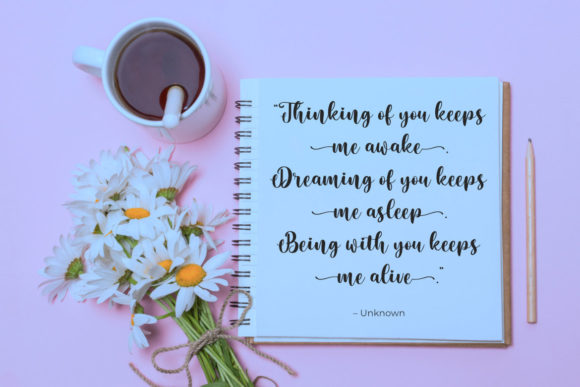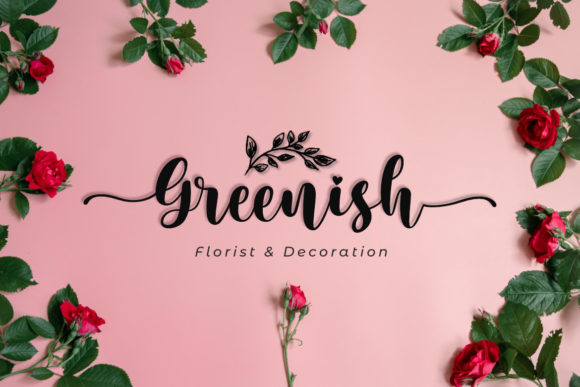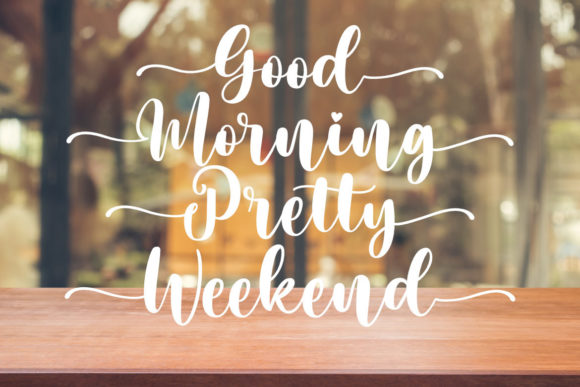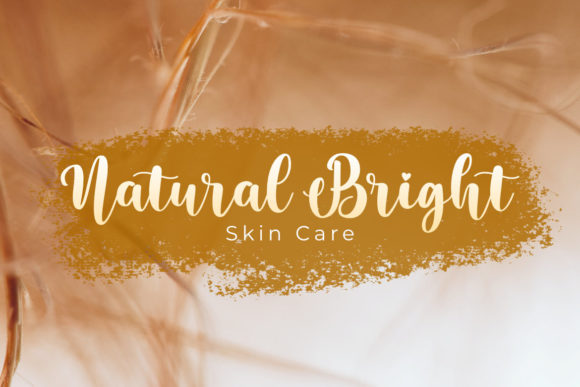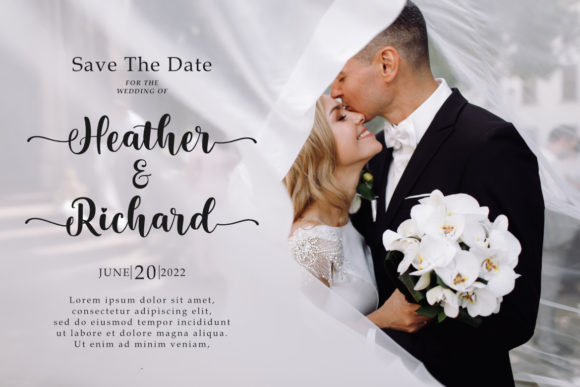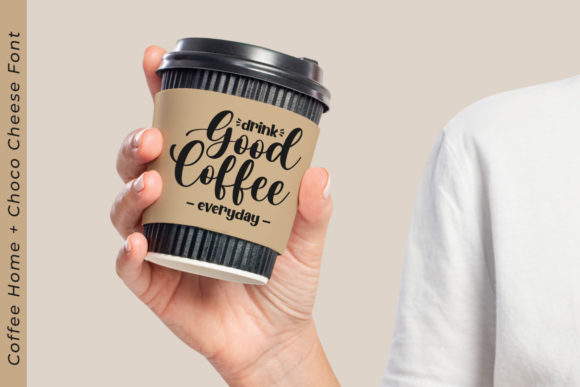
Introduction to Coffee Home Font
Coffee Home is an elegant script font with a contemporary atmosphere and impeccable form, inspired by timeless classic calligraphy.
This font is PUA encoded which means you can access all glyphs and swashes with ease .